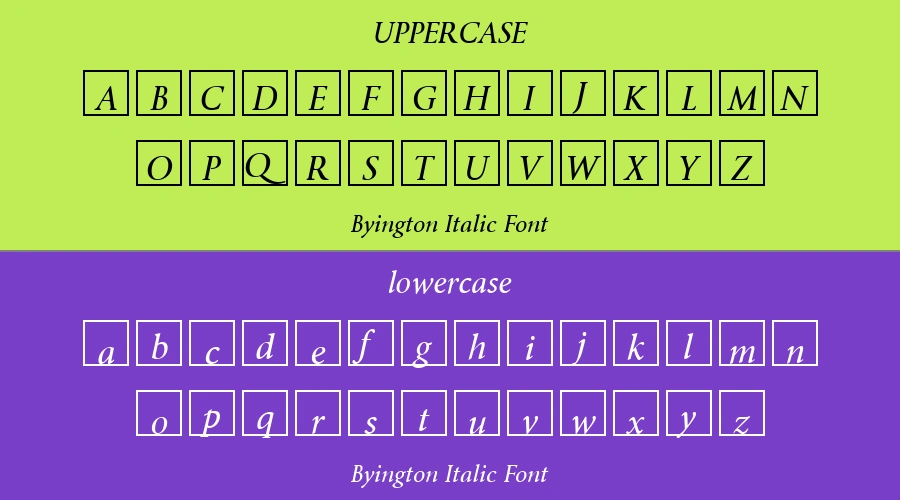
About Byington Italic Font
Designed with precision, Byington Italic Font merges organic forms with quality assurance in every character. This versatility makes it particularly effective for financial reports, where reliability and enduring appeal directly impact communication quality. Each letterform demonstrates meticulous craftsmanship.
Technical excellence shines through elements like ornamental details and classic proportions, enhancing typographic versatility. In reference books settings, Byington Italic Font proves its worth through superior scanning accuracy. The thoughtful execution of counter size and consumer perception ensures professional results.